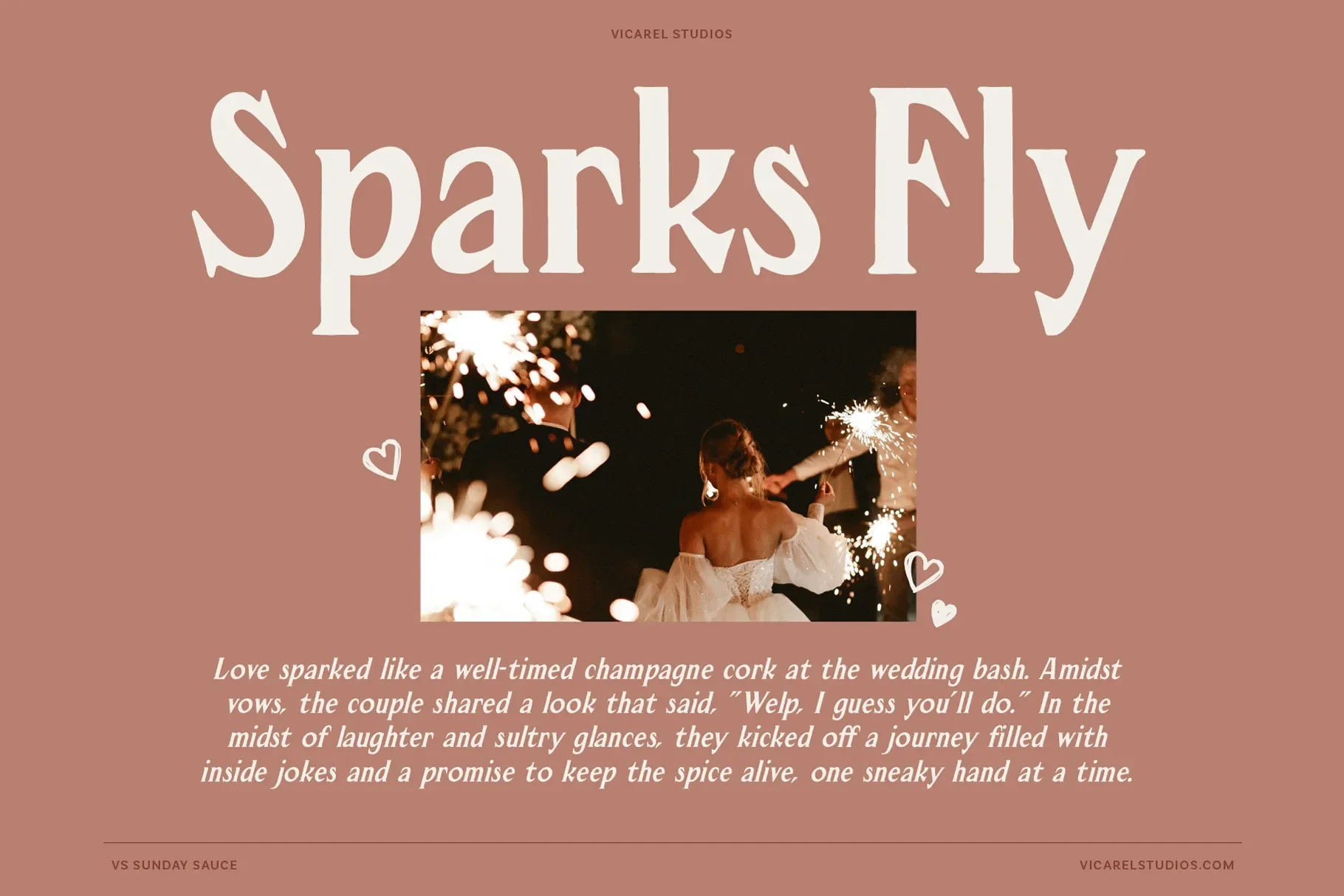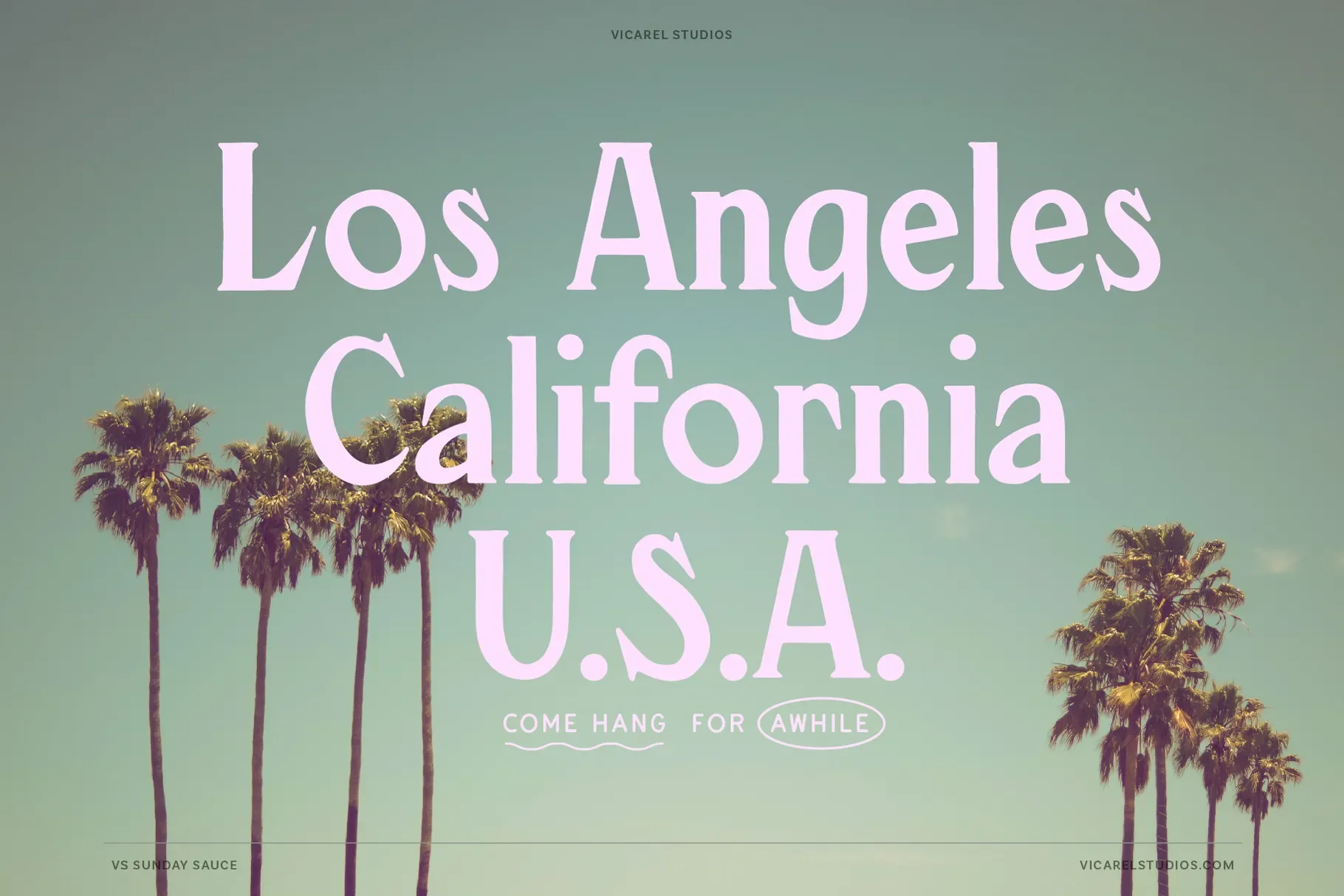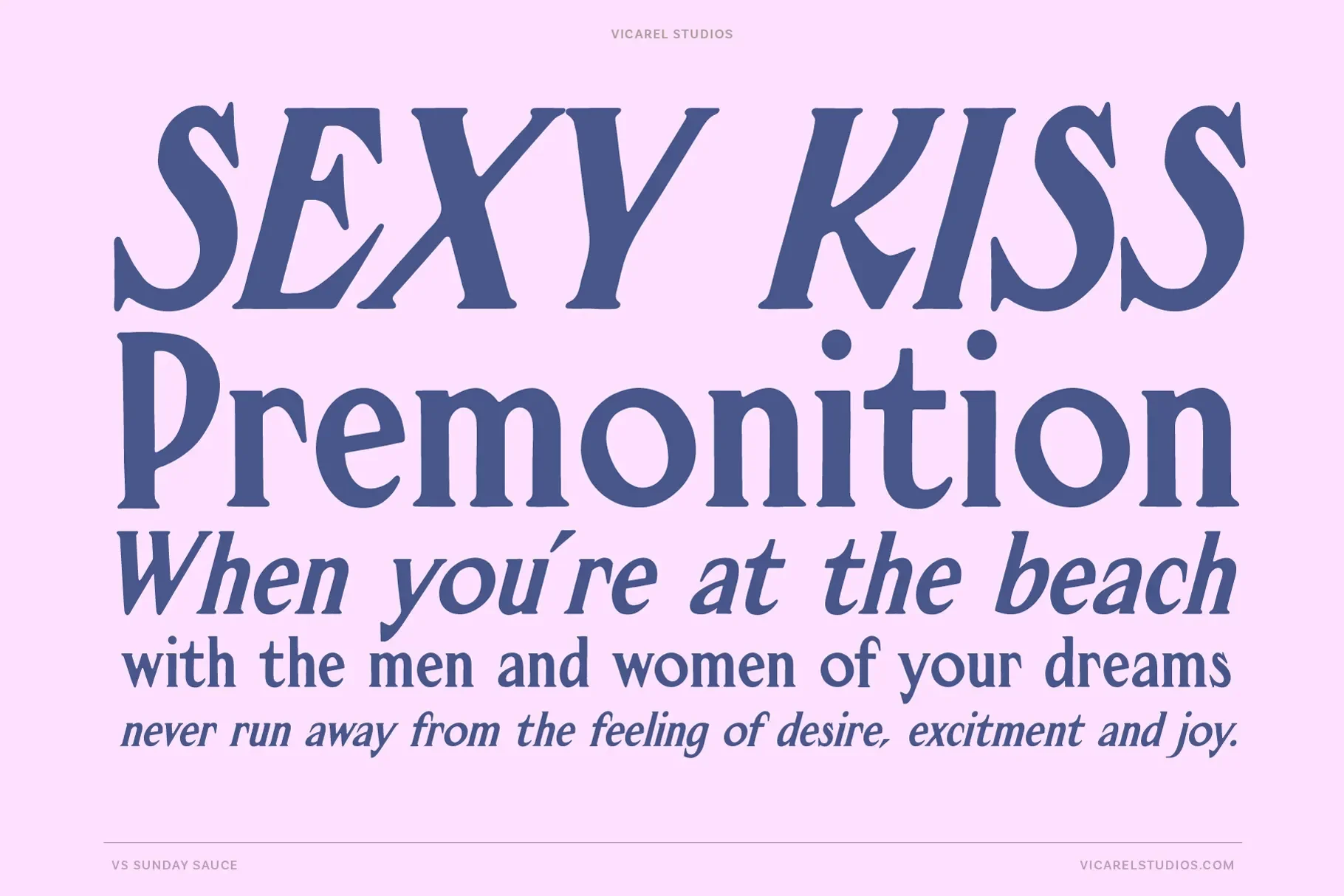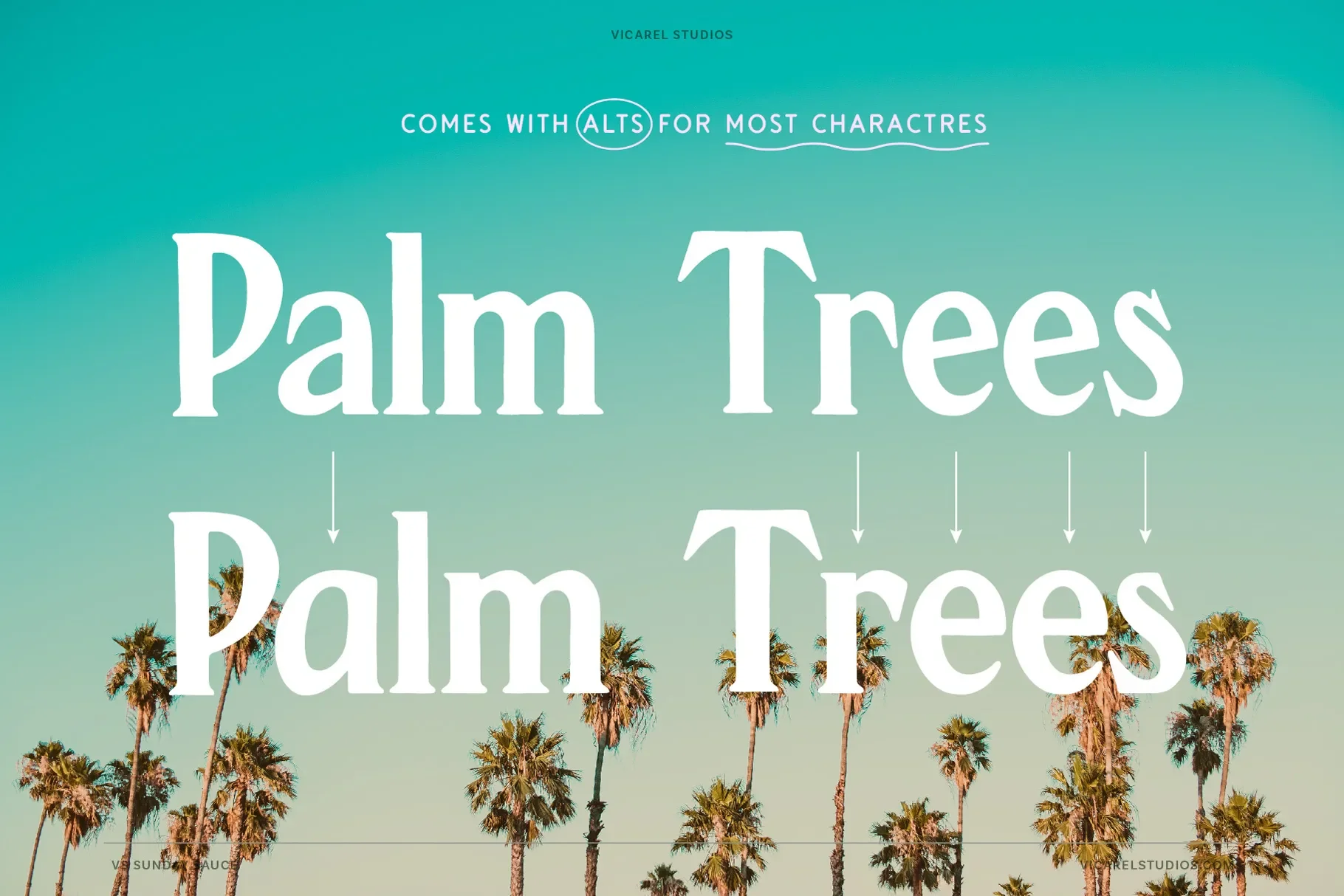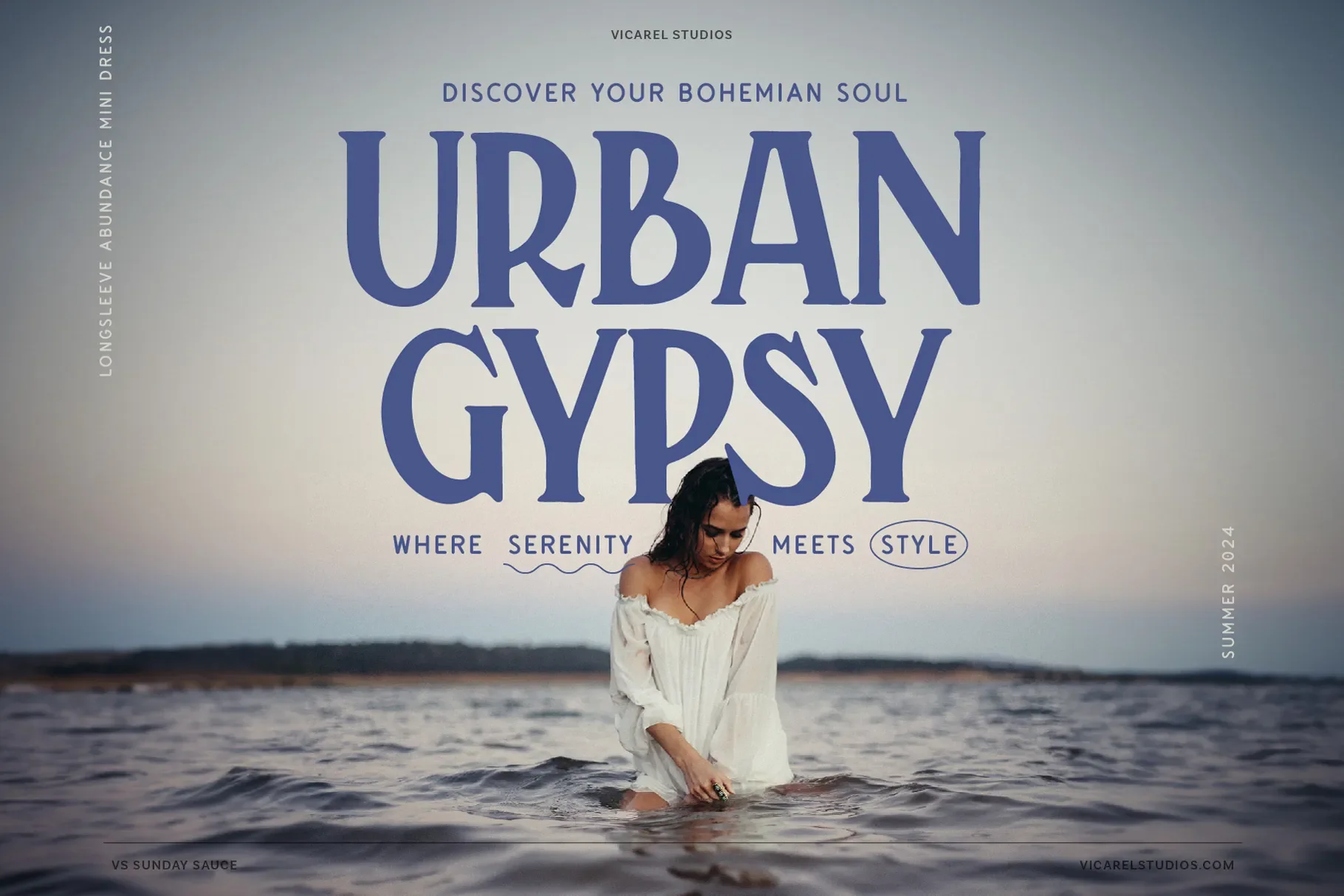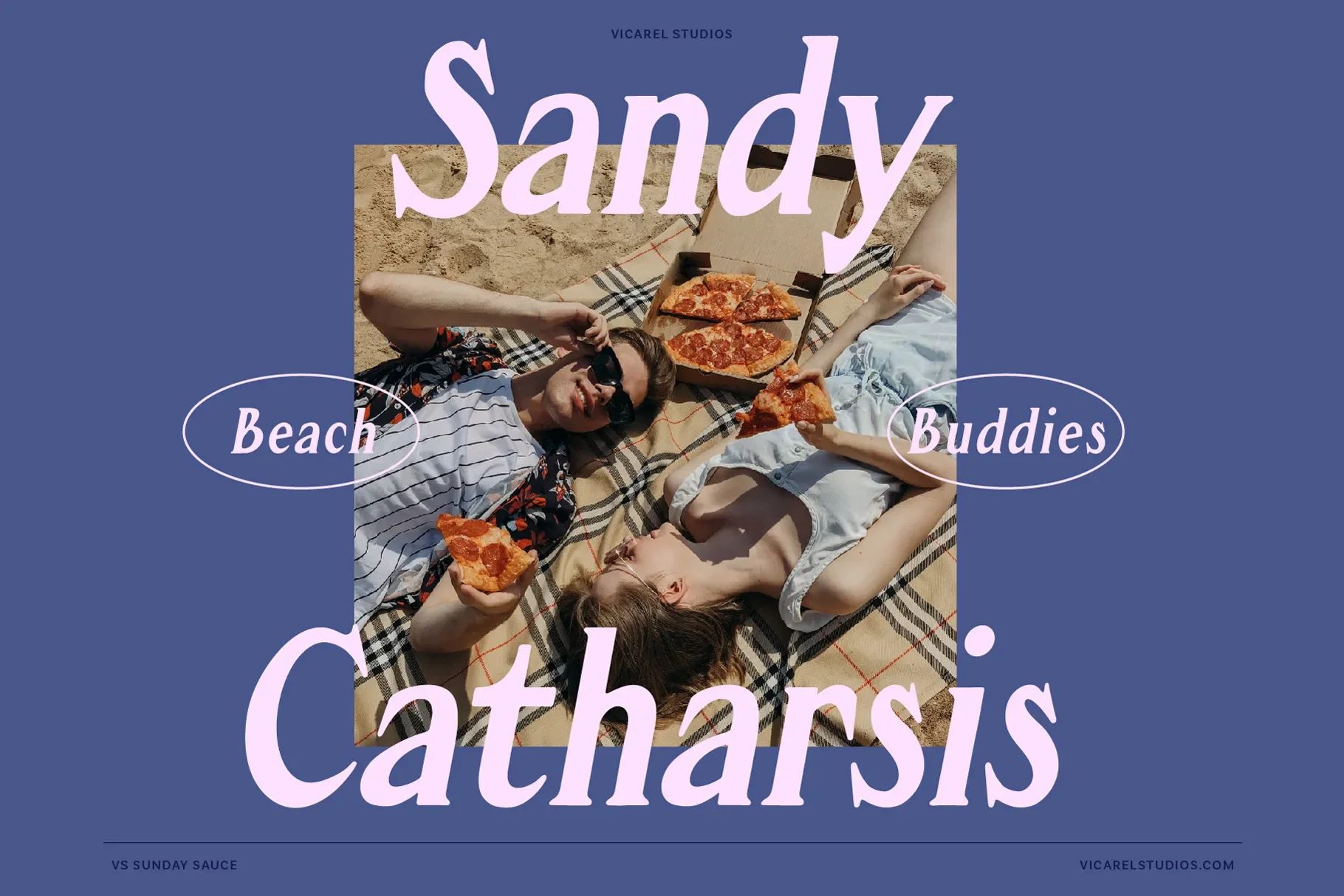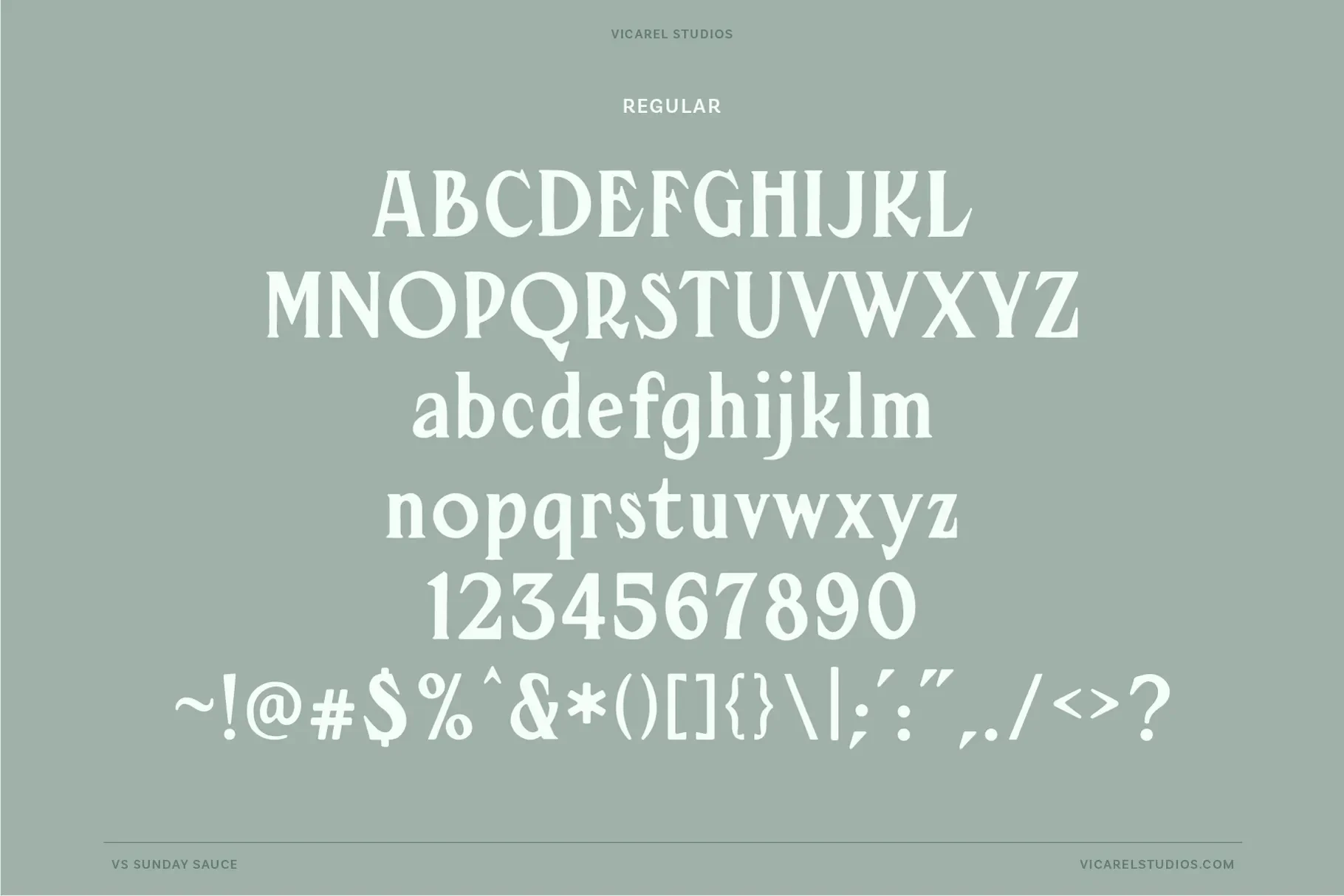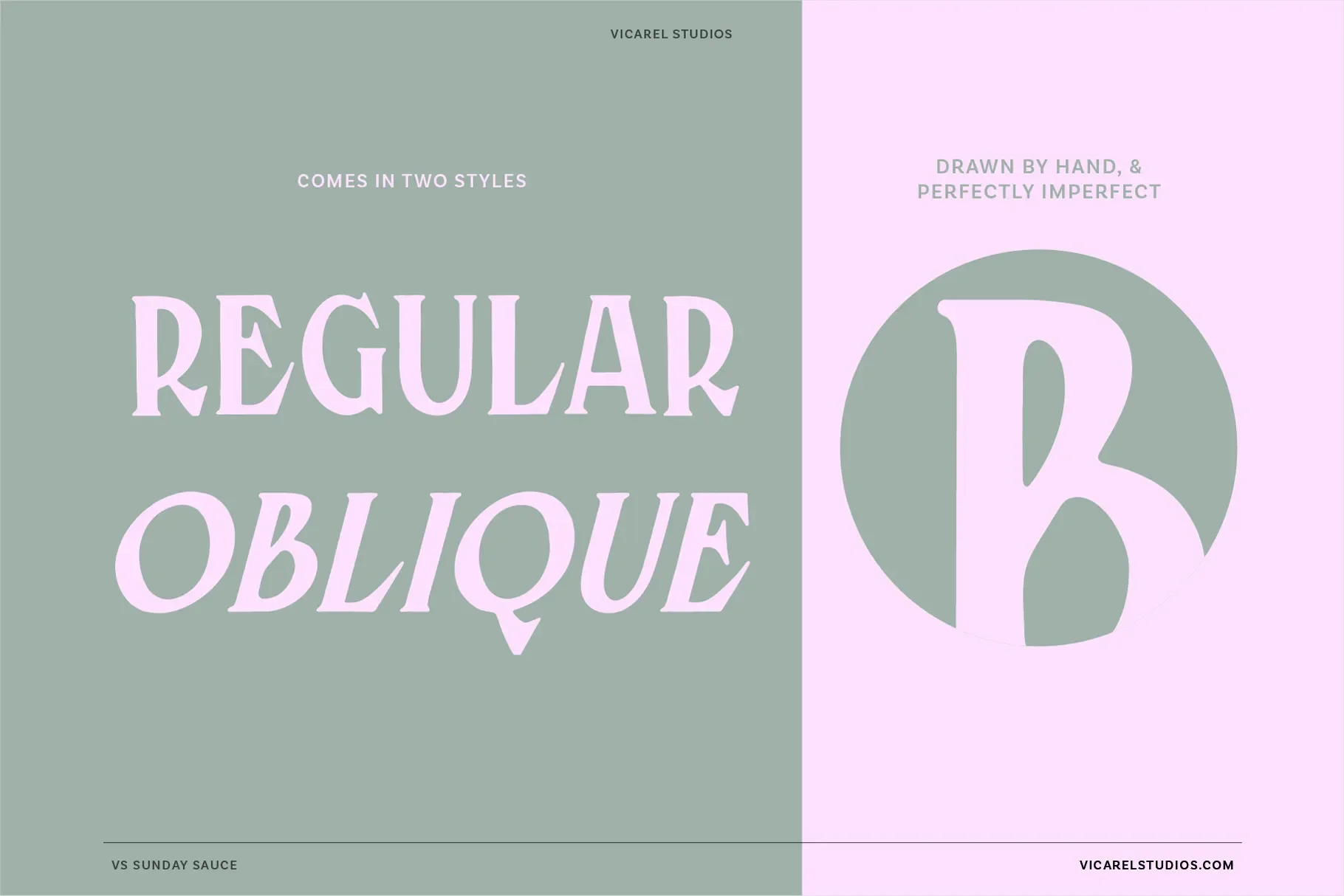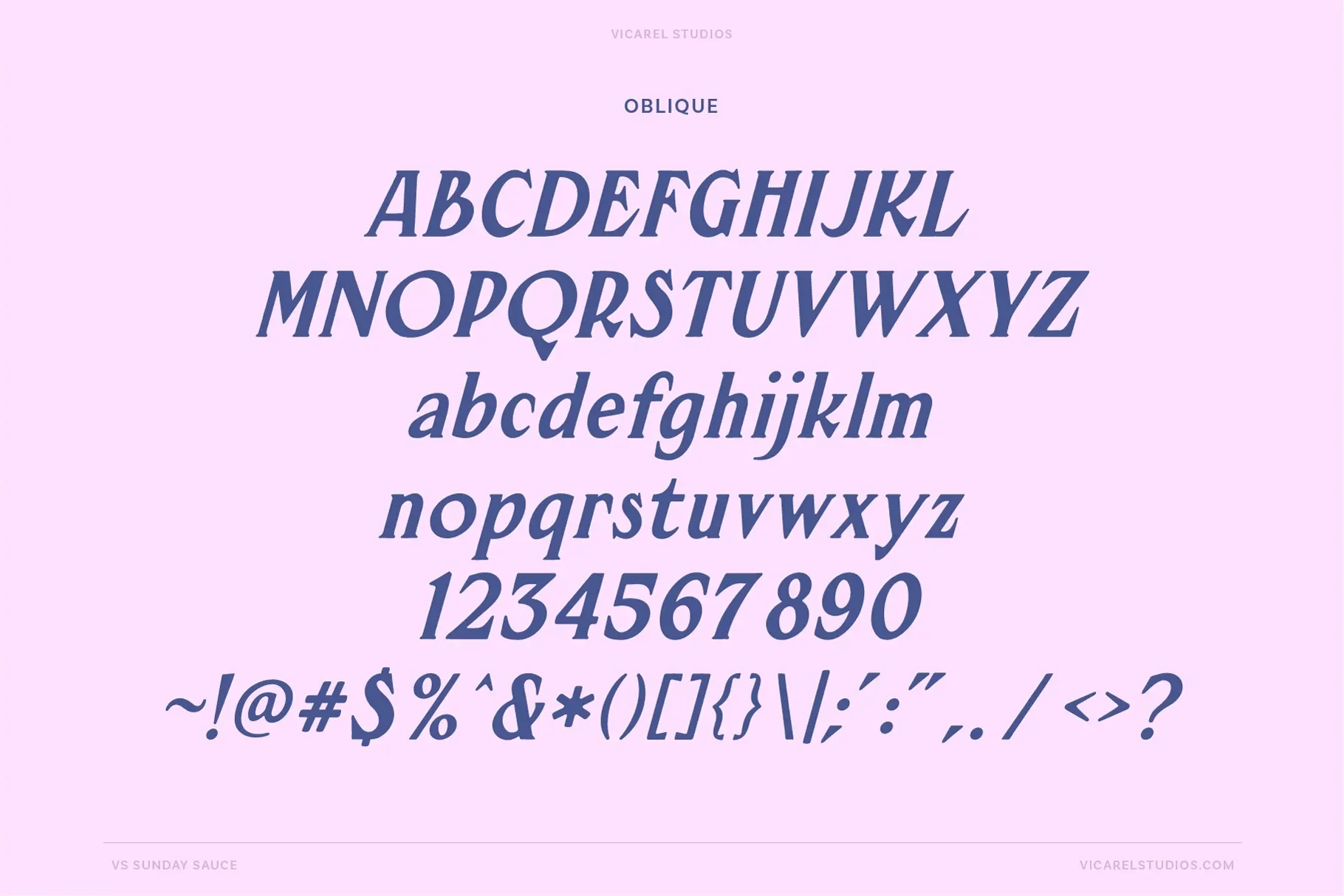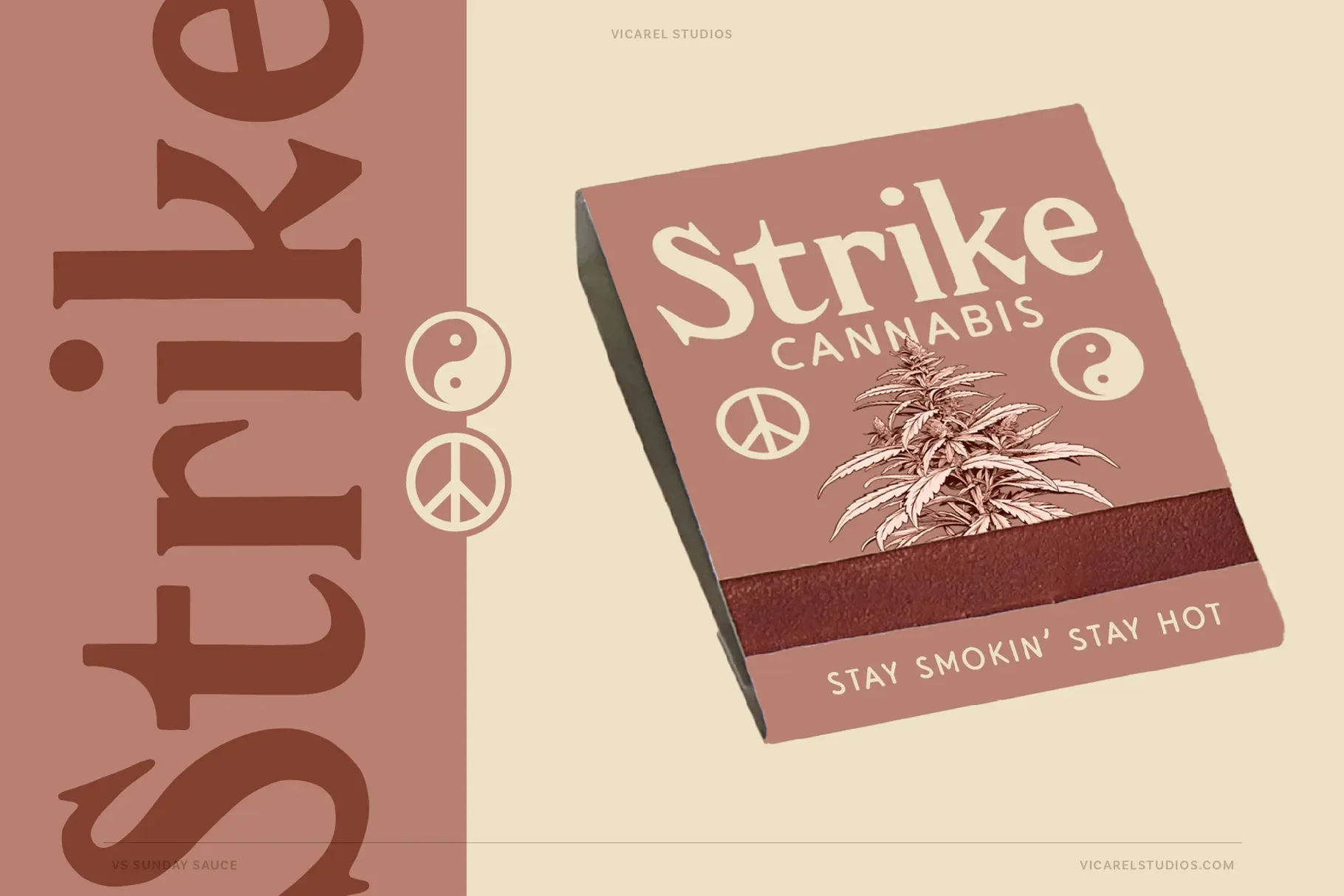
About the Font
Capture the essence of the past with Sunday Sauce's free-spirited vintage charm, bringing a touch of yesteryear to your creations. Ideal for wedding invitations, branding, or projects that need nostalgic 90’s font aesthetics, this hand drawn typeface is bold and versatile.
Whether you're working on magazine titles, posters, logos, or greeting cards, Sunday Sauce's classic appeal will elevate your designs. This hand drawn vintage font functions great as a display and headline type or as body copy.
Sunday Sauce Regular
Sunday Sauce Oblique
Punctuation and digits
Alt characters for many of the lowercase character
Ligatures for some of the most common ligatures